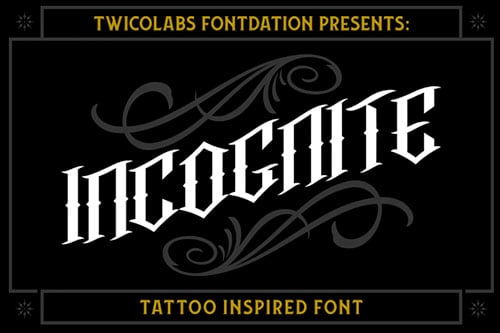
30+ Free Tattoo Fonts (Download Now to Use)
Looking for just the right font for your next tattoo? The search is over. Check out this list of over 30 free tattoo fonts, as well as a selection of premium tattoo fonts from Envato Elements.
Let's take a look at some of the best tattoo fonts you can find at Elements.
12+ Best Tattoo Fonts From Envato Elements
1. Avestrava Tattoo (TTF, OTF)
How awesome is the Avestrava tattoo font? With its Gothic influence, this vintage blackletter is an excellent way to add an interesting twist to your tattoo design. The font offers uppercase, lowercase, alternate characters, ligatures, and multilingual support.
2. Black Quality Cursive Tattoo Font (TTF, OTF)
And speaking of blackletter influence, check out this wonderful cursive tattoo font. The font includes upper and lowercase characters, ligatures, swashes, and multilingual support. It also offers types from outline to rough that you can layer to create your own unique look.
3. Risthi Tattoo Script Font (TTF, OTF)
Looking for feminine cursive tattoo fonts? How about Risthi Script, a handwritten stylish calligraphy font with a dancing baseline and elegant touch. The font includes standard glyphs, ligatures, stylistic alternates, and multiple language support.
4. Lordish Tattoo Lettering Fonts (TTF, OTF)
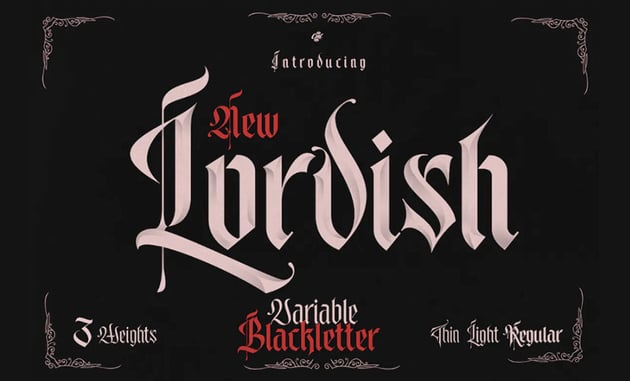
Another cool blackletter font that's great for creating distinct tattoo text, Lordish provides you with a complete selection of upper- and lower-case characters and punctuation, as well as several foreign language characters and accents. Have fun creating your own Gothic influenced tattoo text.
5. Dayles Tattoo Script Fonts (TTF, OTF)
Create a one-of-a-kind tattoo when you use the Dayles font. This beautiful tattoo script font not only offers the usual collection of uppercase and lowercase letters, numerals, and punctuation, but also includes ligatures, beautiful swashes, alternative fonts, and more, so you can mix and match to design your own unique script.
6. Ornacle Tattoo Lettering Fonts (TTF, OTF)
If you're on the lookout for tattoo fonts with a difference, this one is for you. Ornacle uses a clever, futuristic design that makes it a totally original font. If you're also looking for a great tattoo number font, this is one to check out. Its versatile look also makes it a great option as a tribal tattoo font.
7. Chicano Tattoo Script Font (TTF, OTF)
Chicano is a swirly whirly tattoo font for those who like loads of flourish and movement in their tattoo text. The font includes uppercase and lowercase letters, numerals, and a large range of punctuation and ligatures, as well as beautiful swashes and alternative font styles.
8. Perfect Typewriter Font Tattoo (TTF, OTF)
Typewriter font tattoos are definitely on trend at the moment. Don't be left out or left behind. Grab this fun and classic font which comes in three styles—original, ink-made stamp marks, and one with a funky, irregular baseline—and design text you'll love.
9. Not My Type Typewriter Font (TTF, OTF)
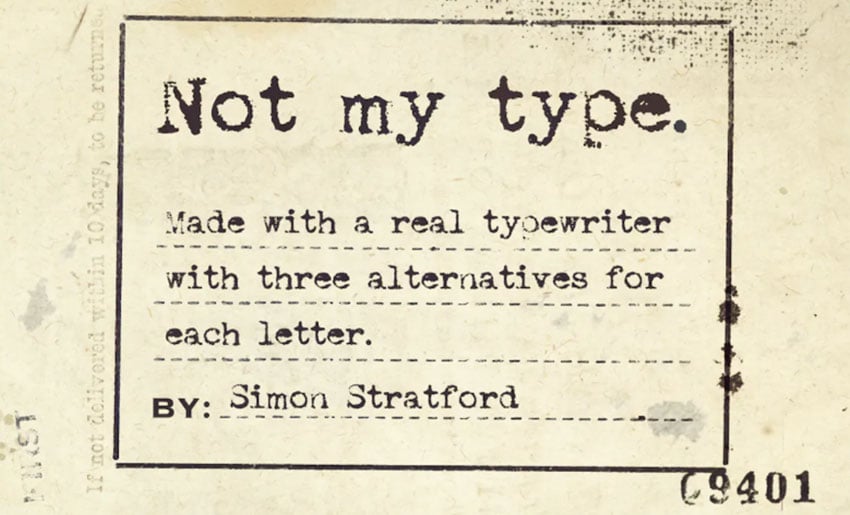
Keeping with the awesome typewriter font tattoo theme, we've got another one for you. Also inspired by the cool, mechanical look of classic typewriter lettering, this font features upper and lowercase characters, numbers, punctuation, and over 180 unique glyphs. In other words, everything you need to have some fun!
10. Rumble Tattoo Font (TTF, OTF)
This cool tattoo ink font is a design inspired by elegant vintage handwriting. With a complete collection of upper and lowercase characters, numbers, punctuation, multilingual characters, swashes, ligatures, and flourishes, this is an excellent font for creating your own unique look that's completely modern, but with a nod to the past.
11. Blondia Tattoo Script Font (TTF, OTF)
Blondia is an awesome modern feminine cursive tattoo font that references hand-drawn letterforms. This is not a usual choice for tattoos, and that's exactly what makes it so perfect for creating your simple but stunning tattoo designs.
12. Tribal Tattoo Ink Font (TTF, OTF)
Tribal fonts for tattoos are timeless, no matter who you are. Your tattoos should be as memorable as you, and that's why we recommend Tribal, a superb tribal tattoo lettering font that's bound to turn heads. This stylish font includes upper and lowercase characters, numbers, punctuation, and plenty of swashes and alternates to create a unique and incredible design.
13. Sadis Tattoo Font (OTF, TTF)
Sadis is a wild and exciting tattoo lettering font that the bold and daring will appreciate. This Gothic font features a complete set of upper and lowercase characters, numbers, punctuation, and loads of flourishes, swashes, and ligatures that you can have fun with. It's another great tribal tattoo lettering font to try.